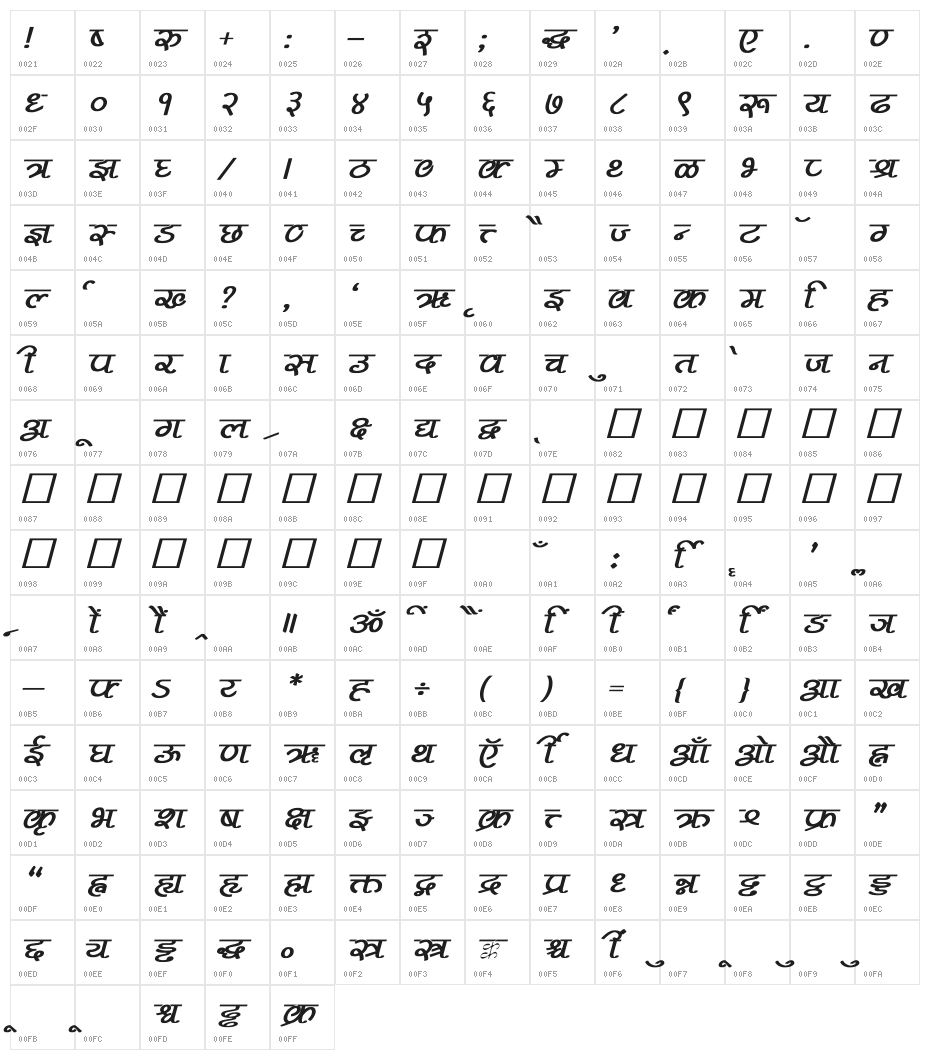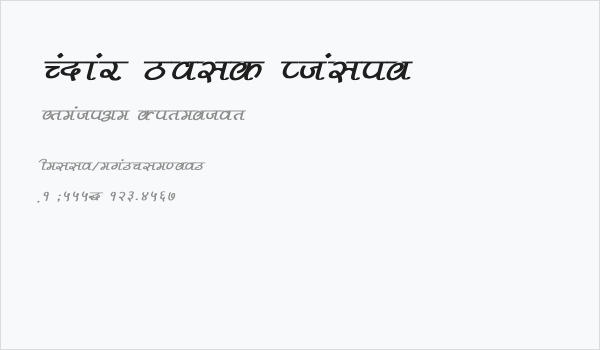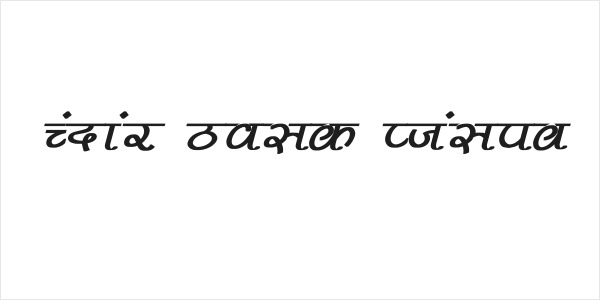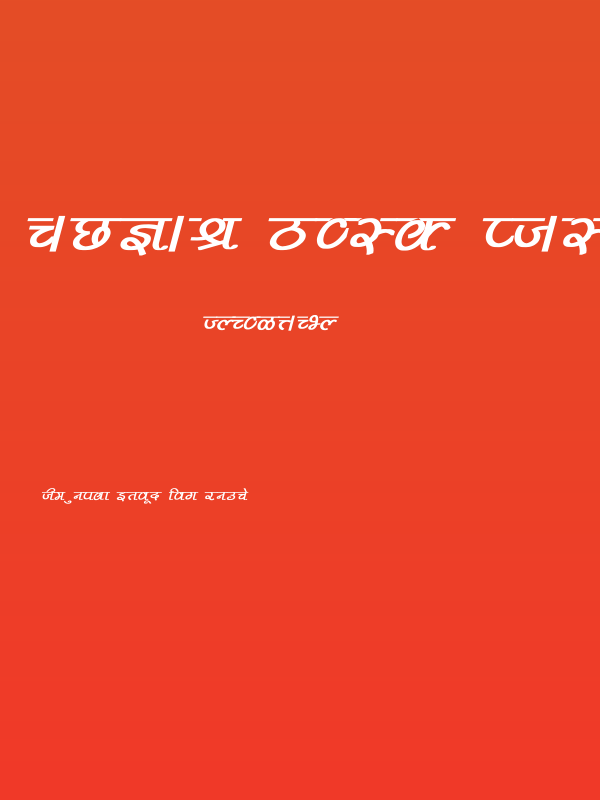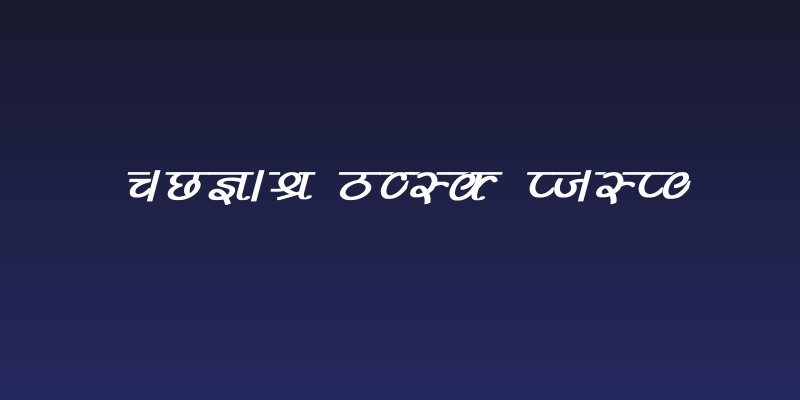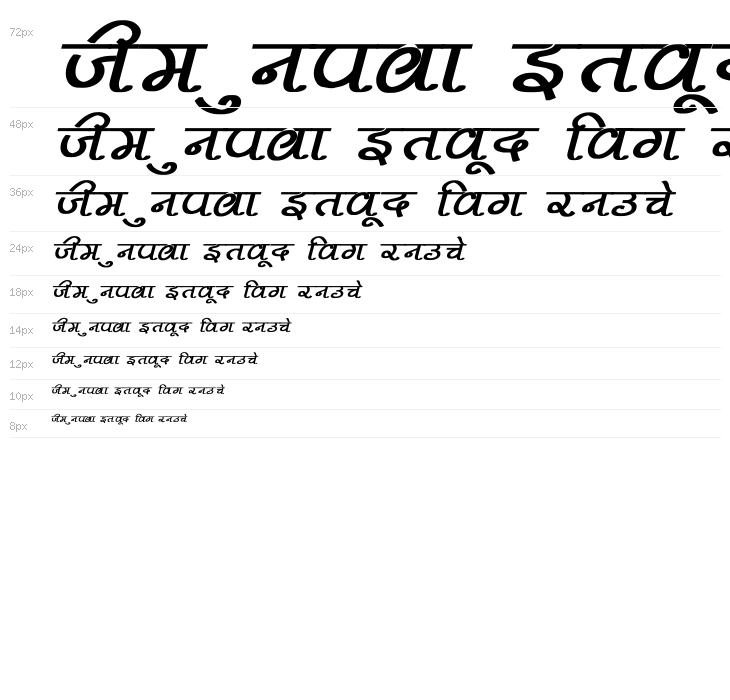
Pankaj Bold Italic Font
Pankaj Bold Italic Description
This font features a bold and italicized style with a distinct calligraphic flair. The characters are elegantly curved, showcasing a fluid motion that adds a sense of dynamism and grace. The strokes are thick, providing a strong visual impact, while the italic slant enhances the sense of movement. The script-like appearance is reminiscent of traditional handwriting, yet it maintains a modern touch. The numerals and special characters are consistent with the overall style, ensuring uniformity across all elements. This font is particularly suitable for projects that require a blend of tradition and modernity, offering a unique aesthetic that stands out.
| Use Case | Logos, Decorative headings |
| Proposed Projects | Ideal for invitations, branding, logos, and decorative headings. |